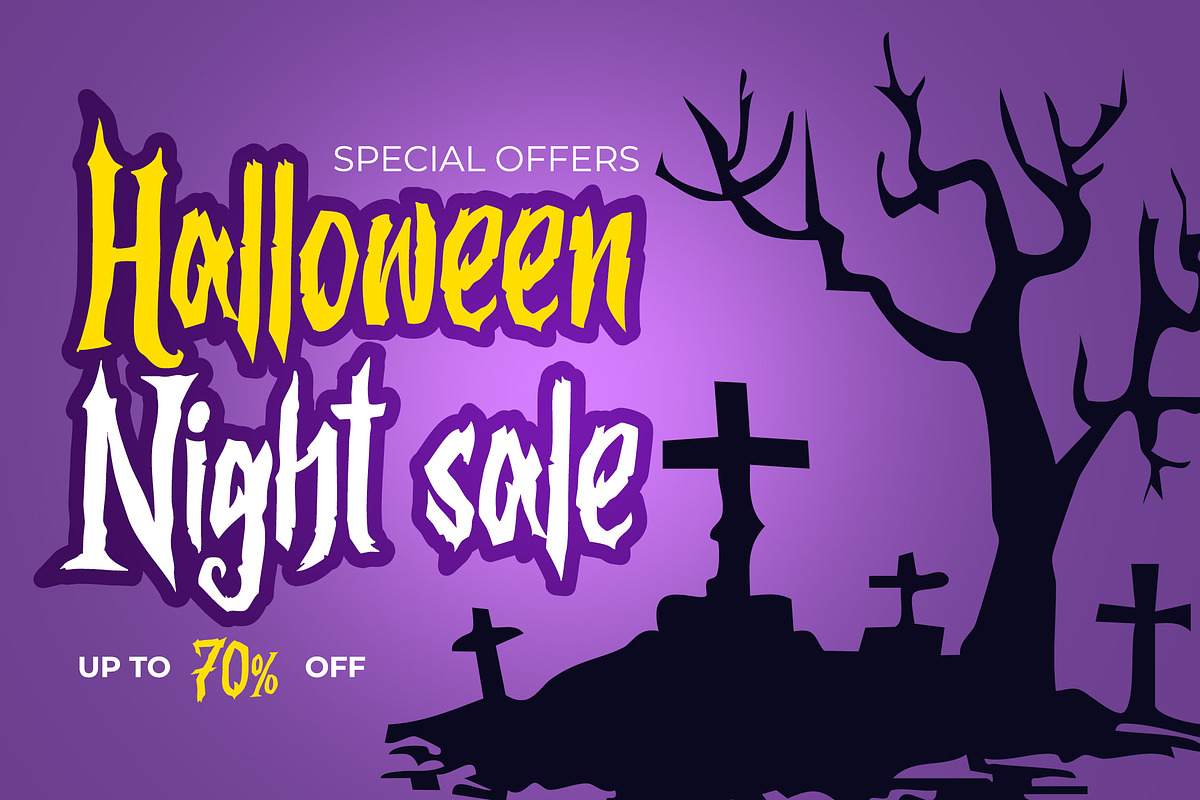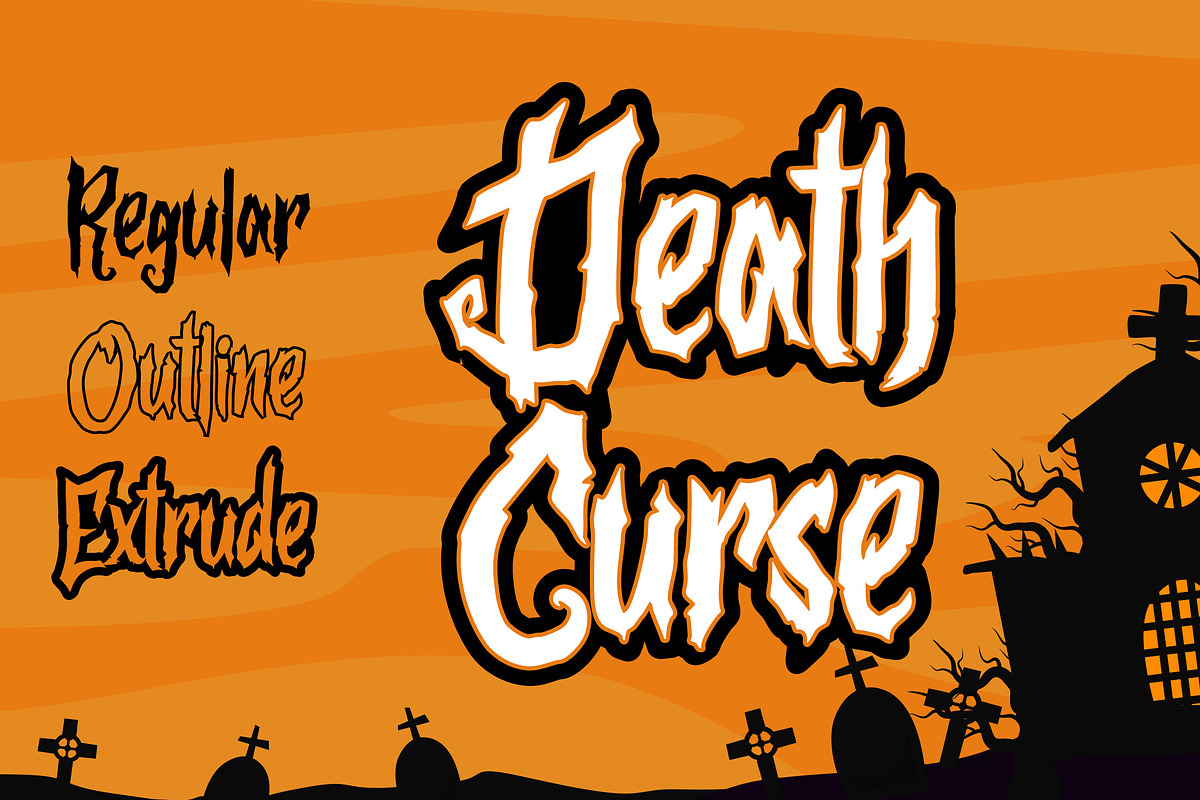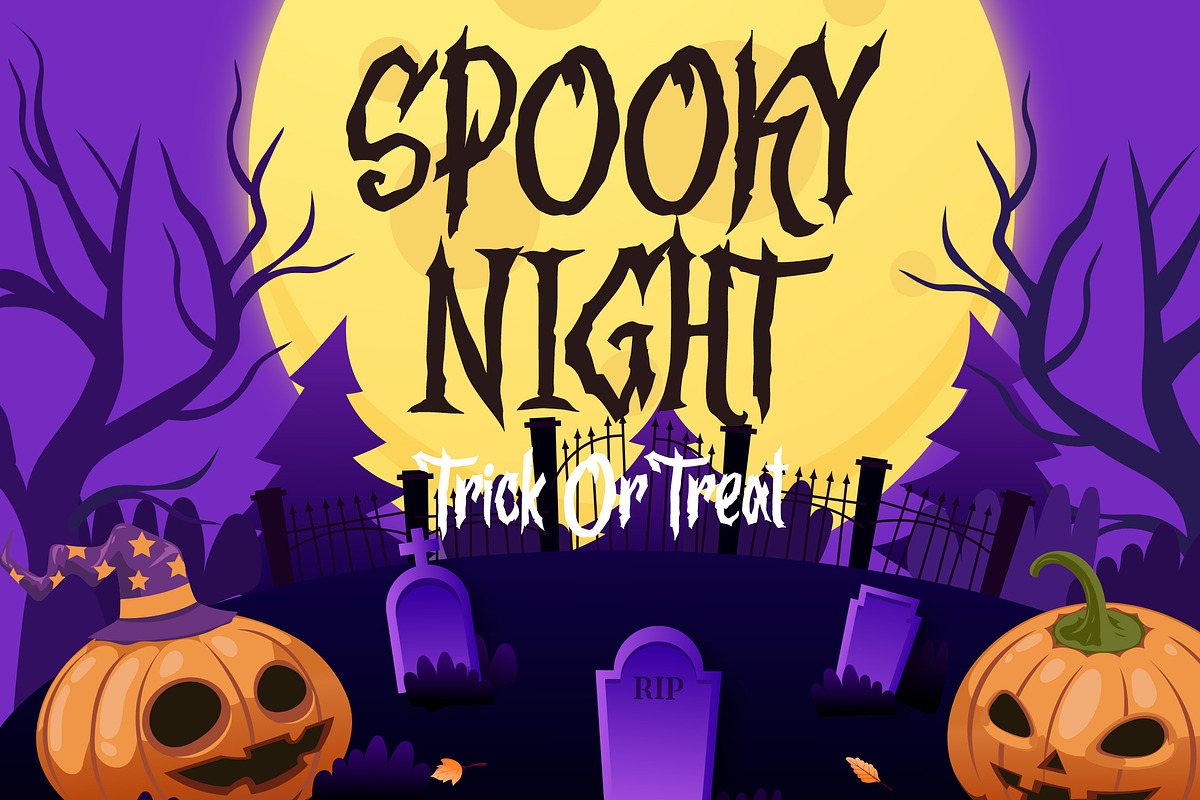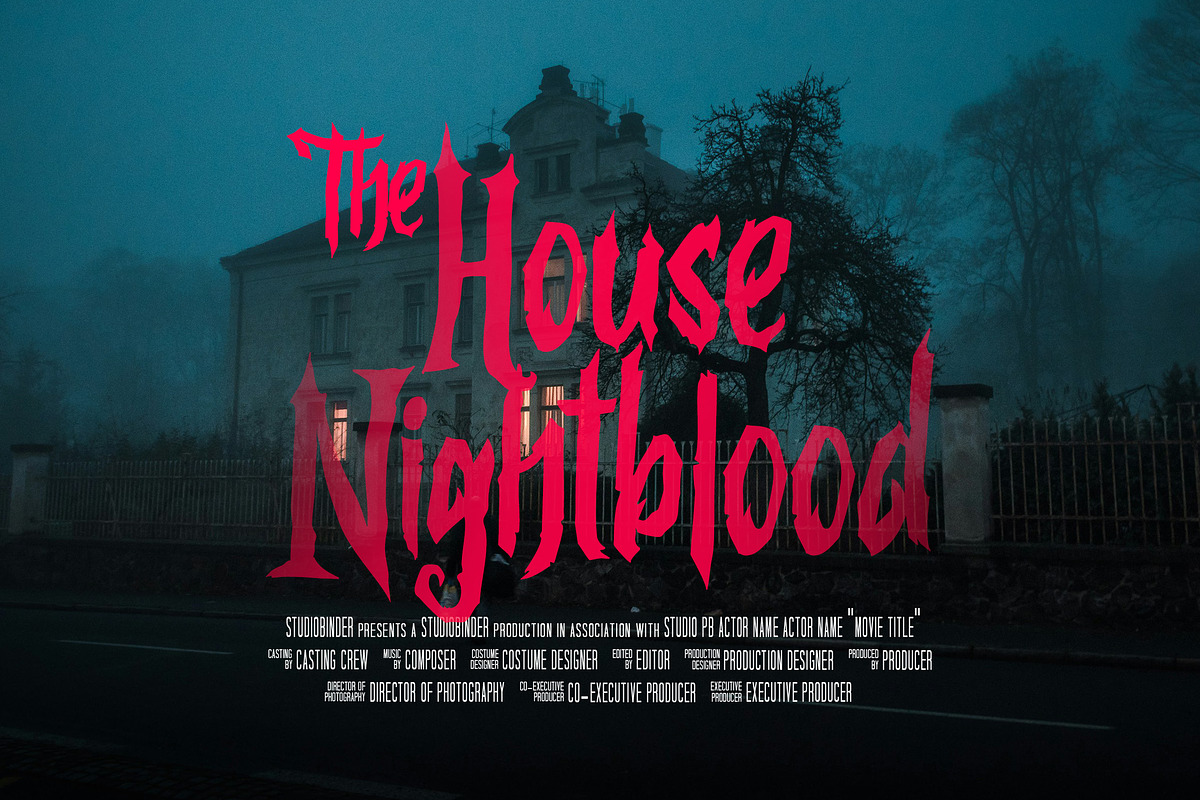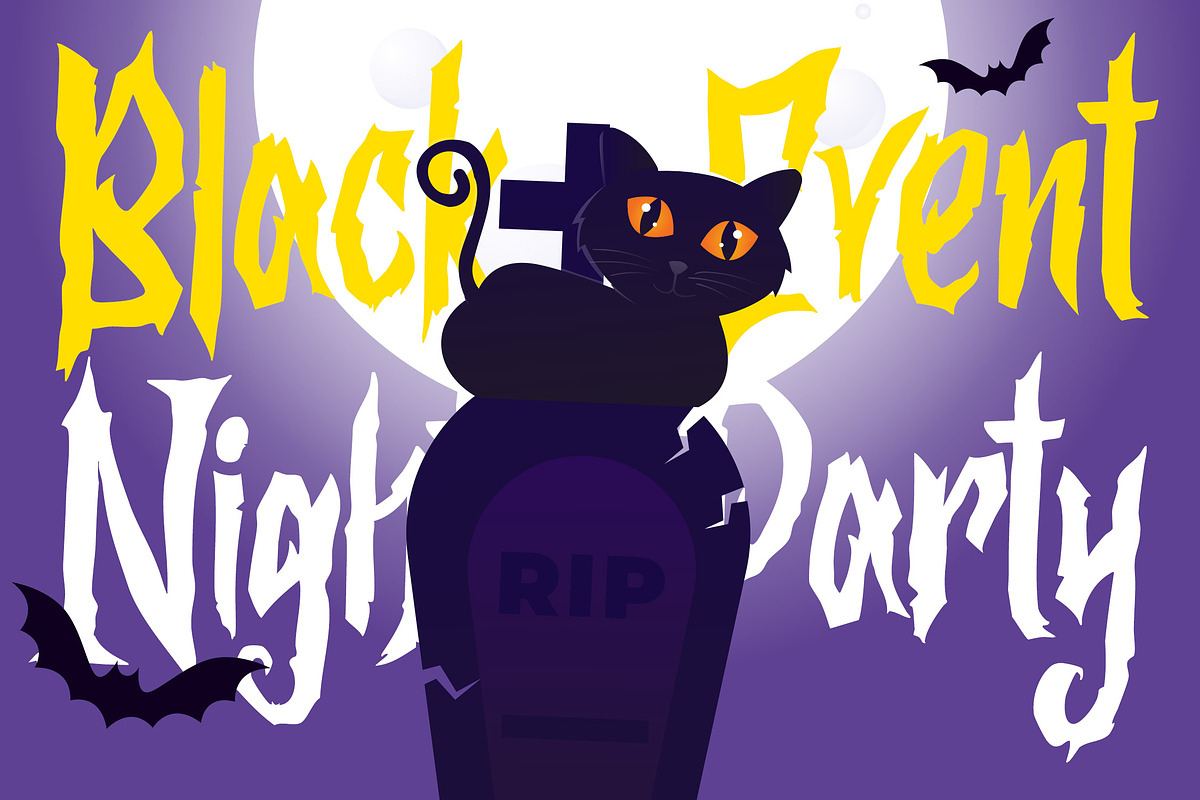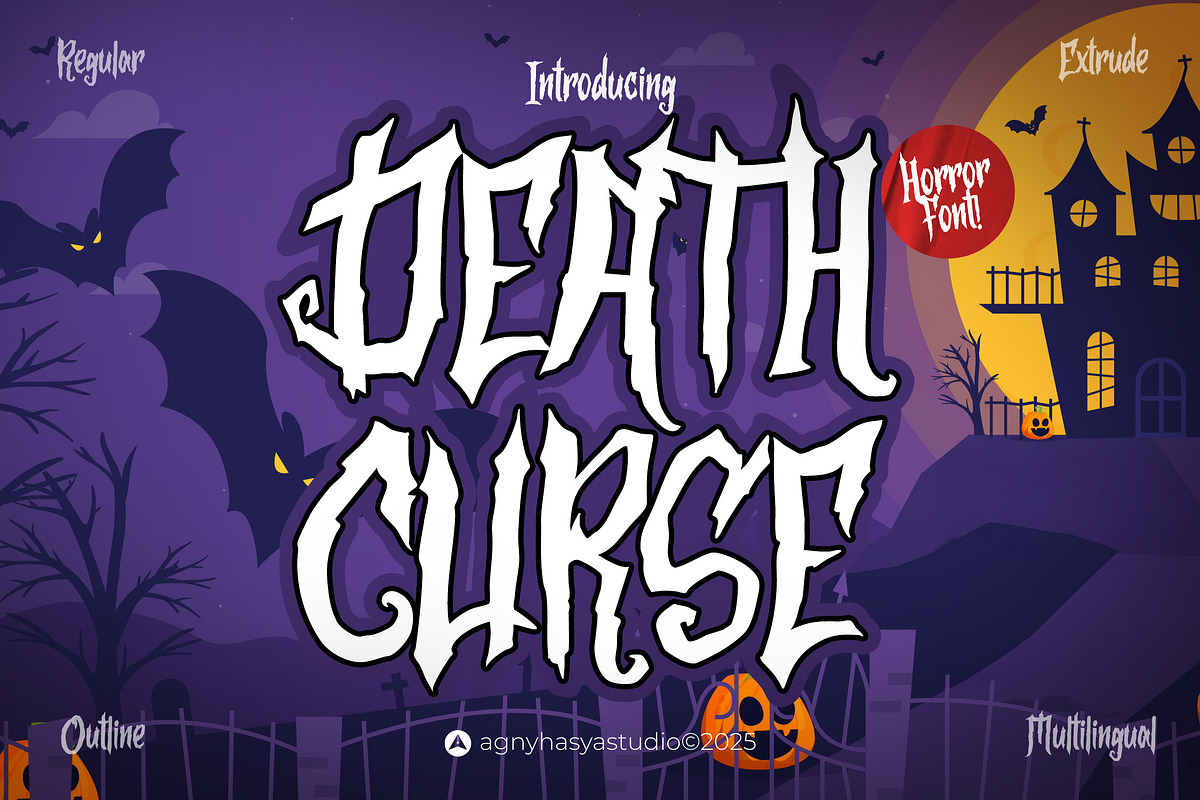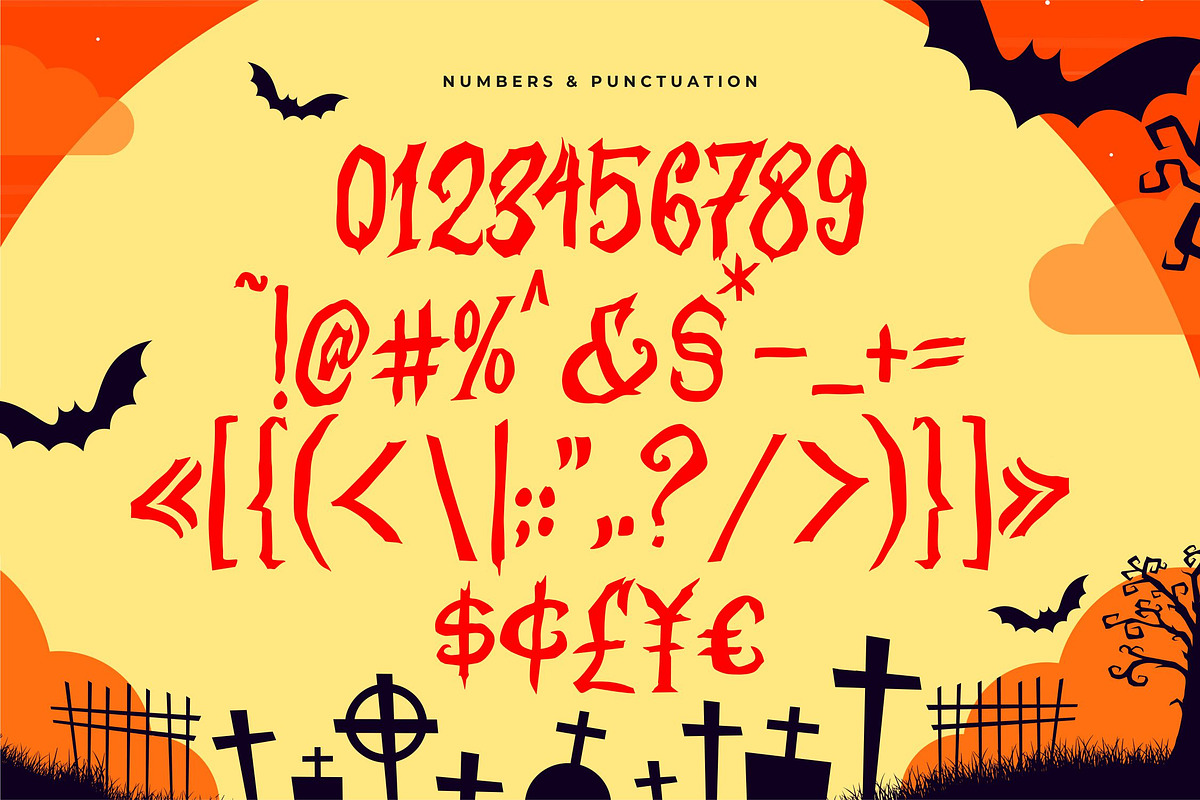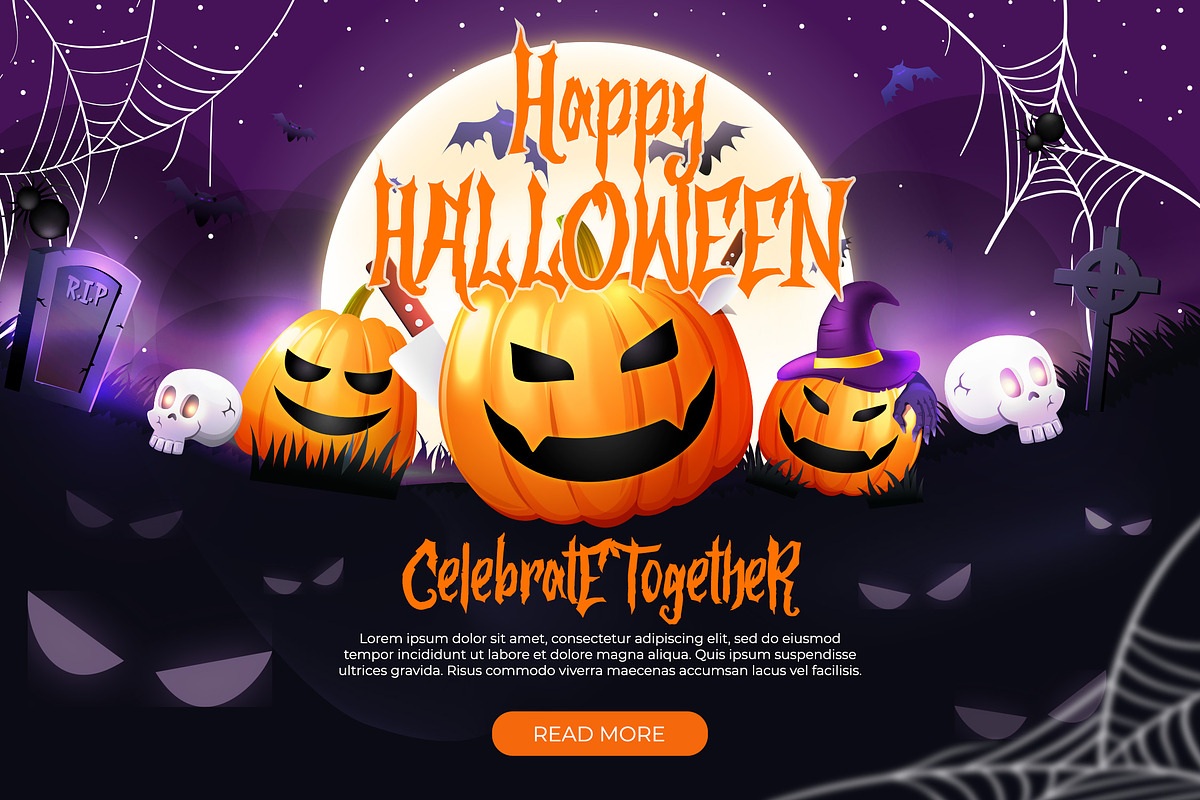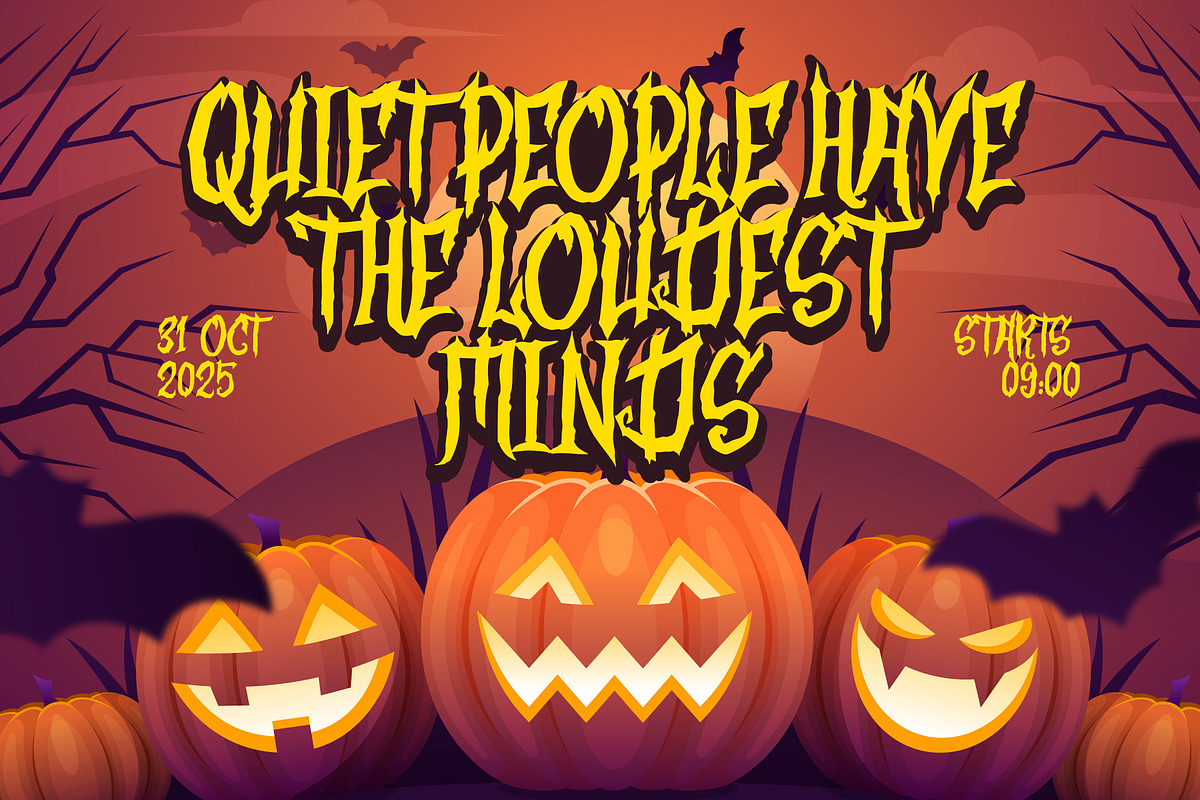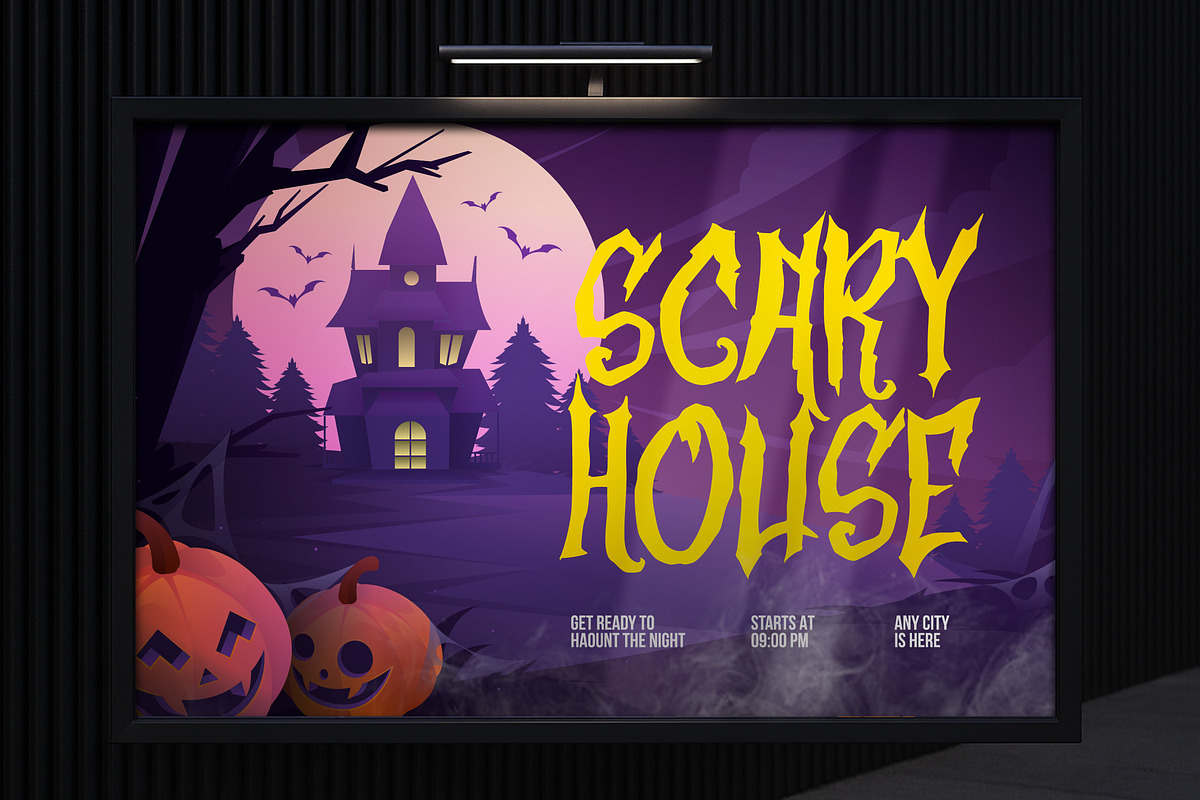
Death Curse
Death Curse is a horror font twisted with root-like details; each letter feels carved from dark forests where old witches whisper curses. Perfect for Halloween posters, occult titles, and designs that demand a chilling, mystical touch, from occult invitations to dark fantasy covers, This font turns your work into a chilling relic of terror.
With three versatile styles: Regular, Outline, and Extrude, Death Curse lets you layer, mix, and experiment for endless haunting variations.